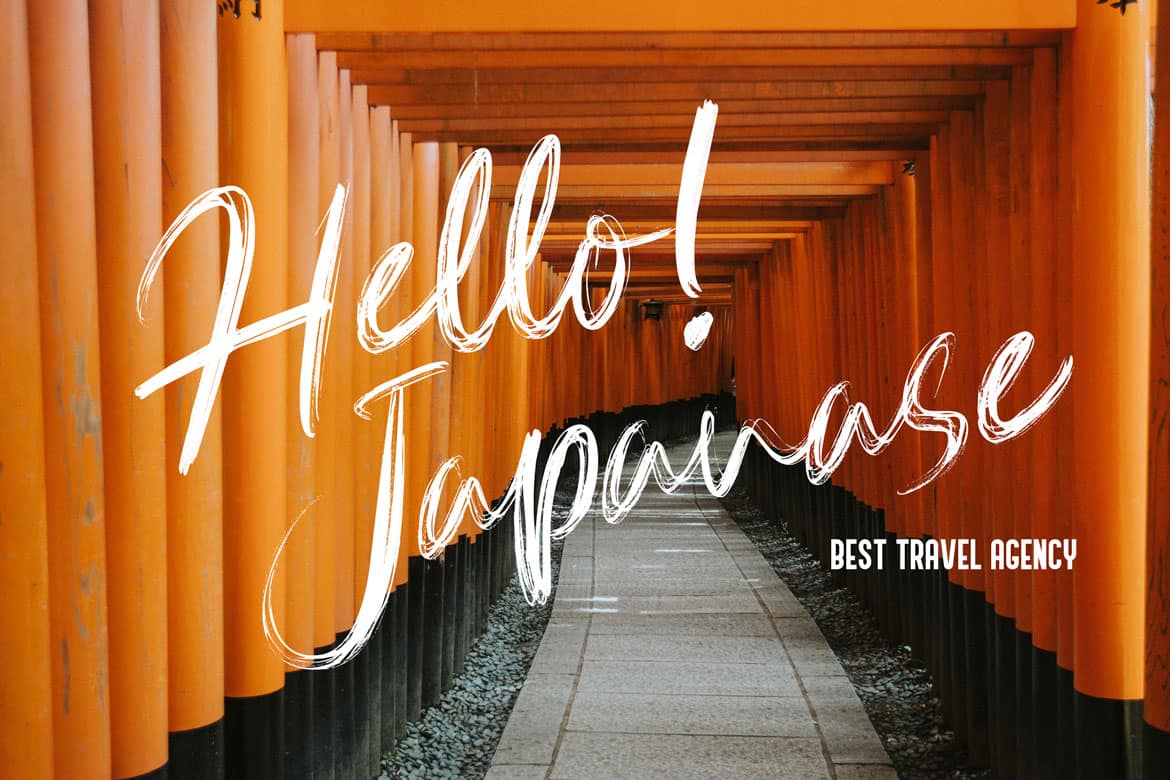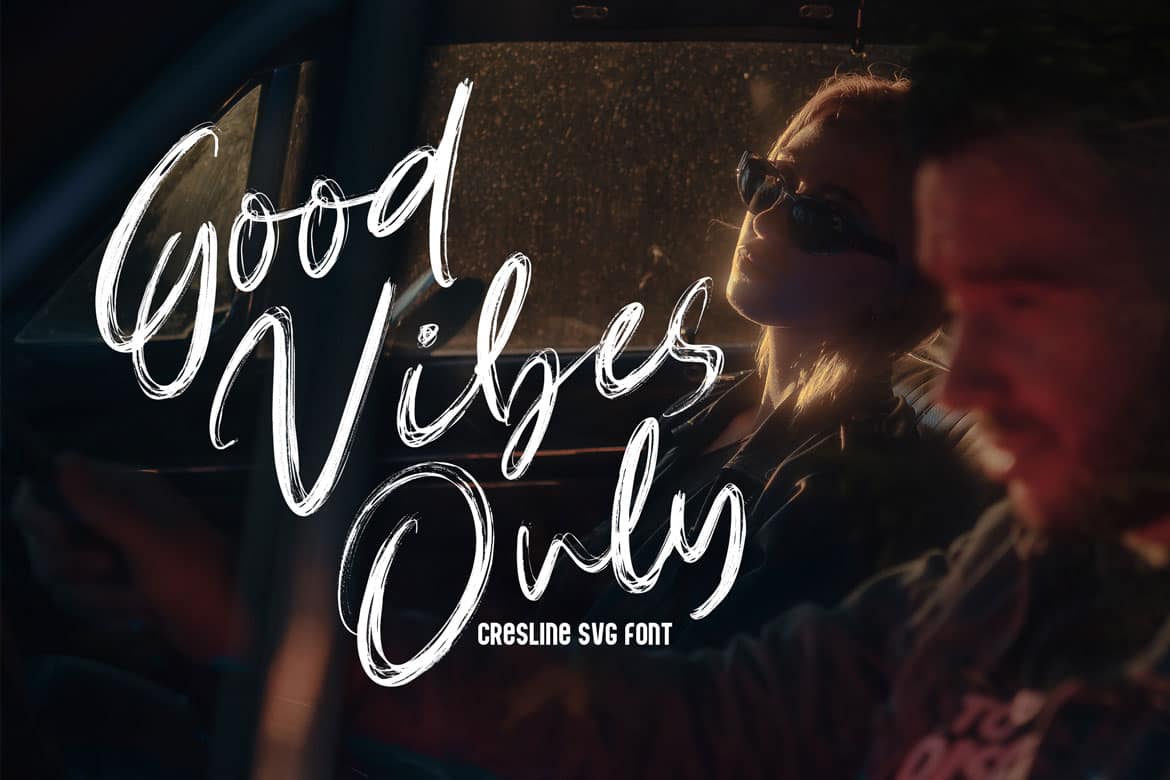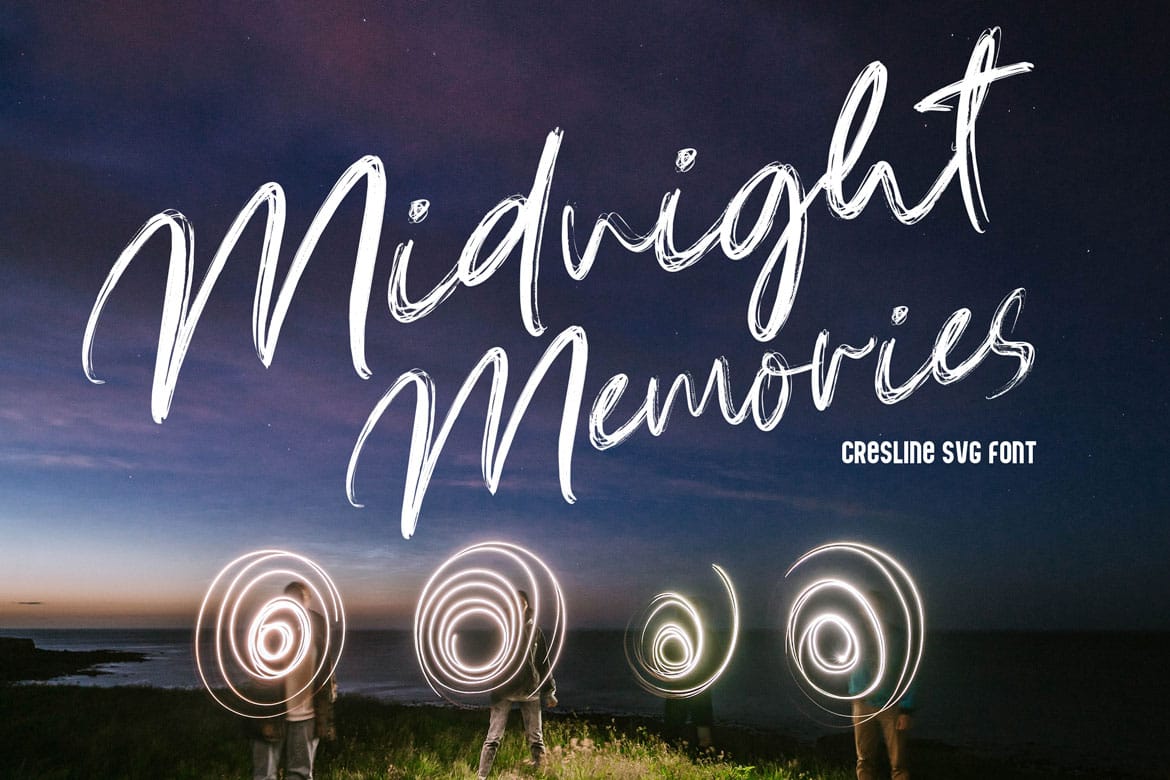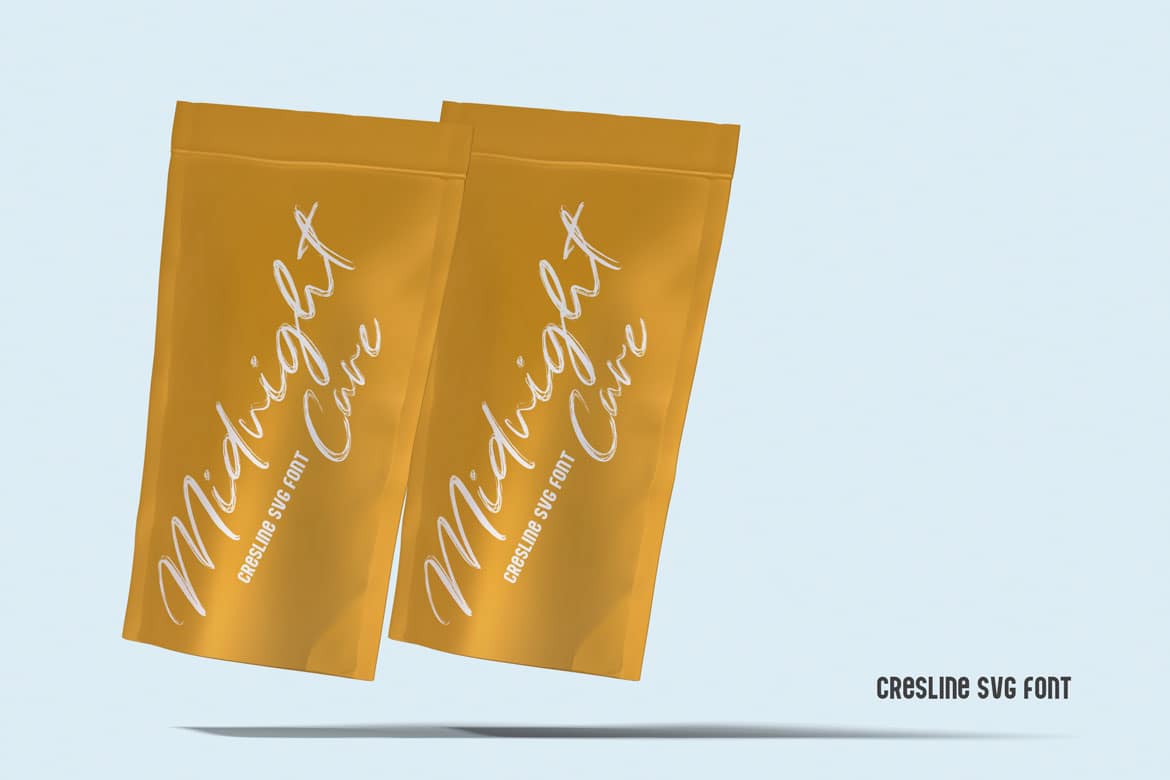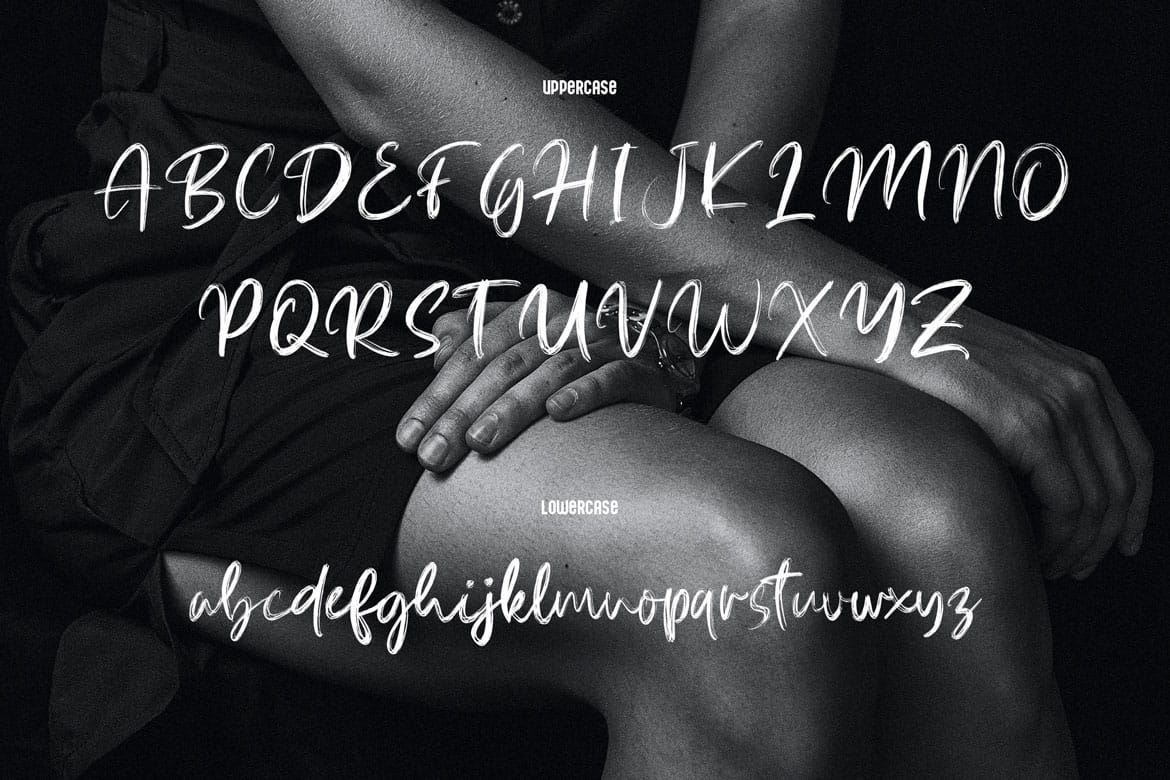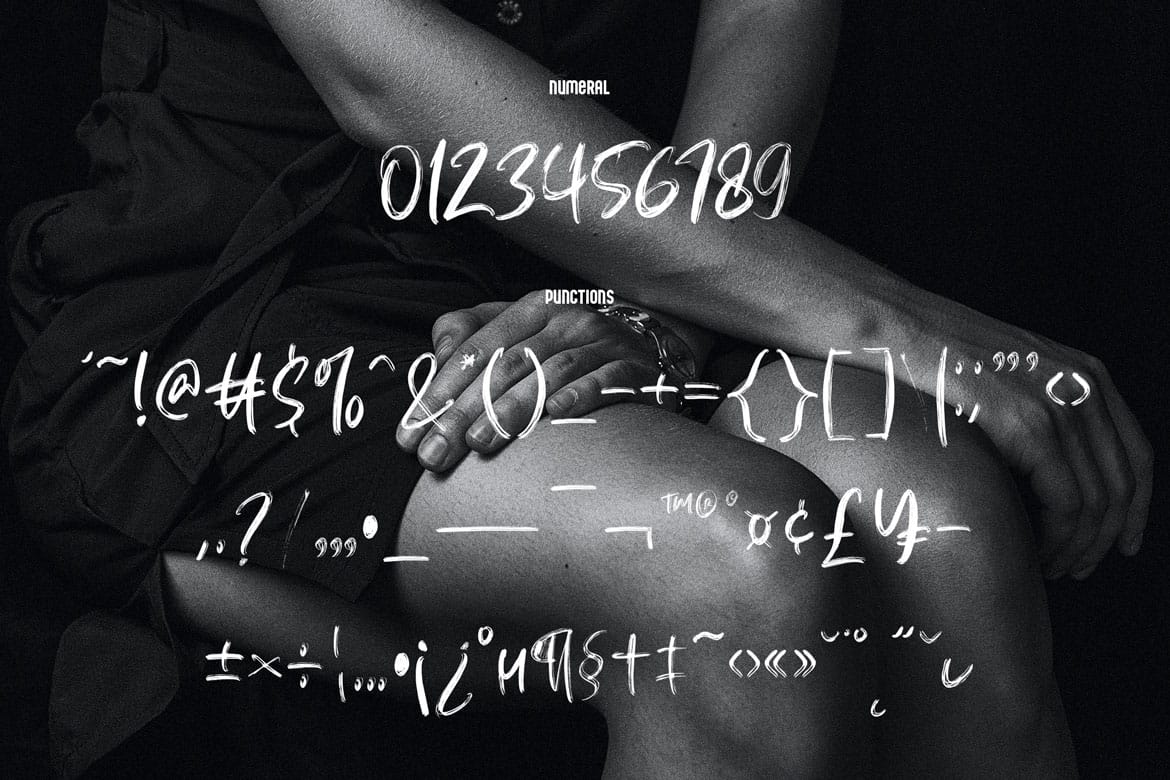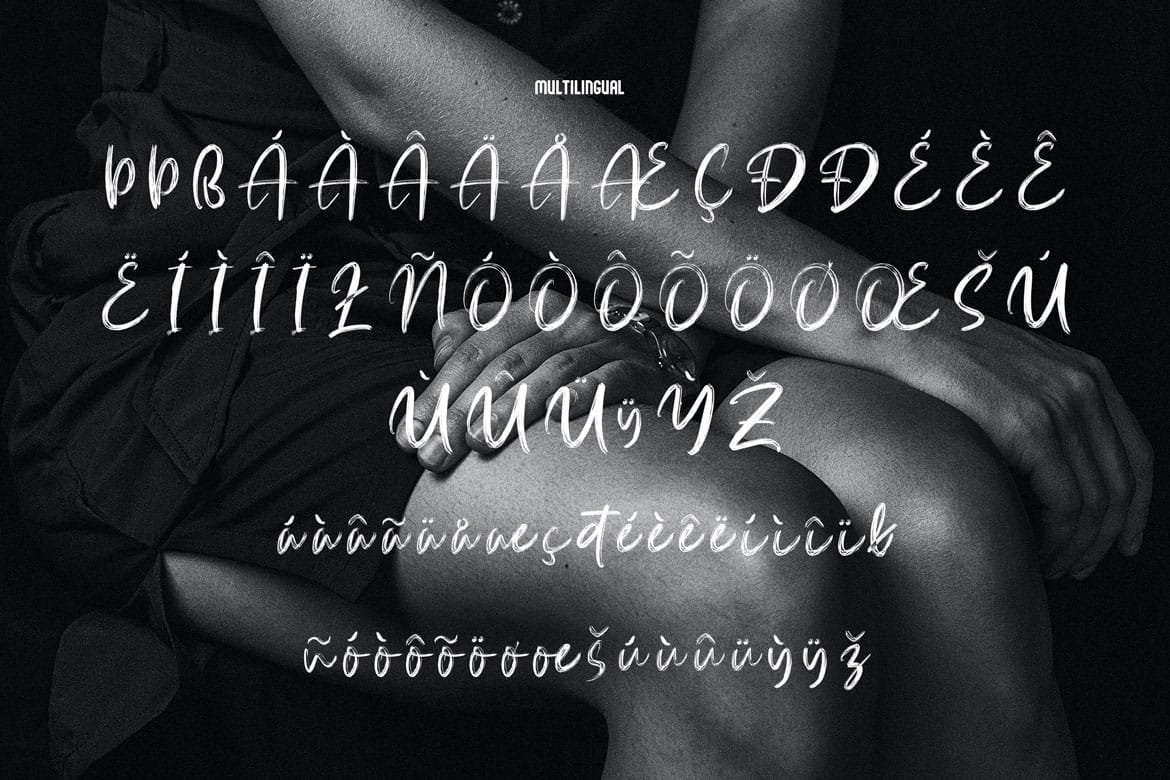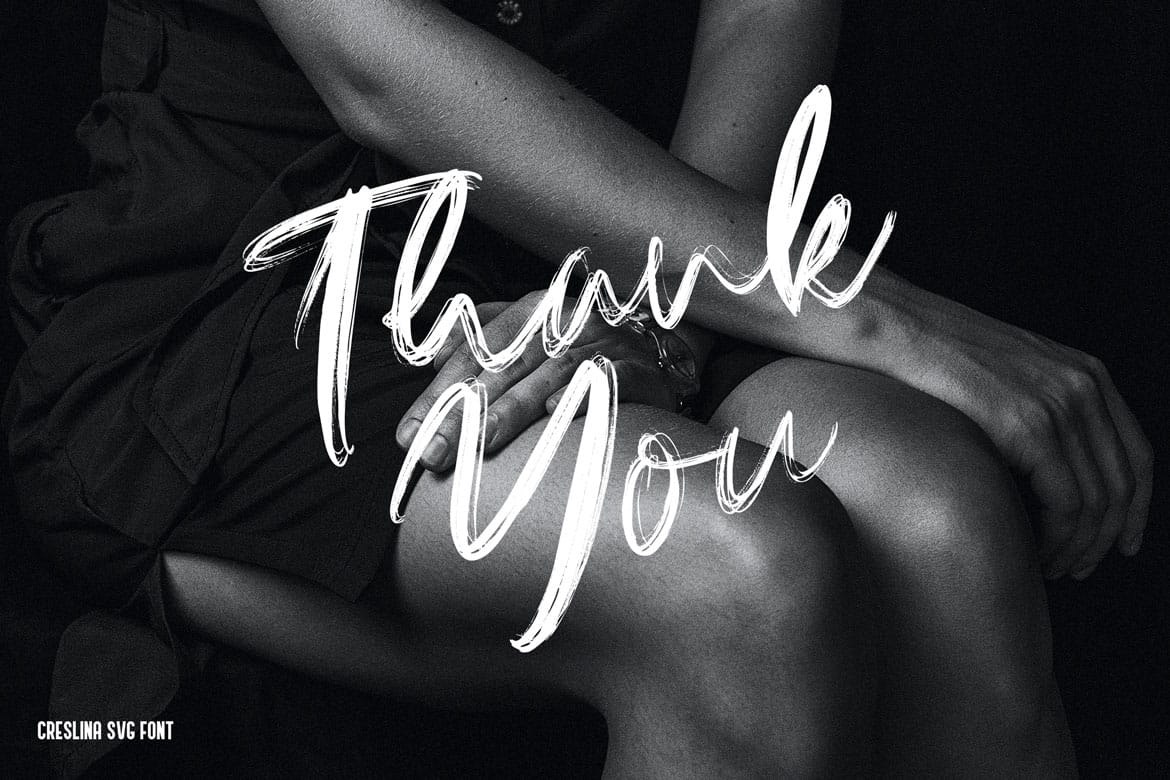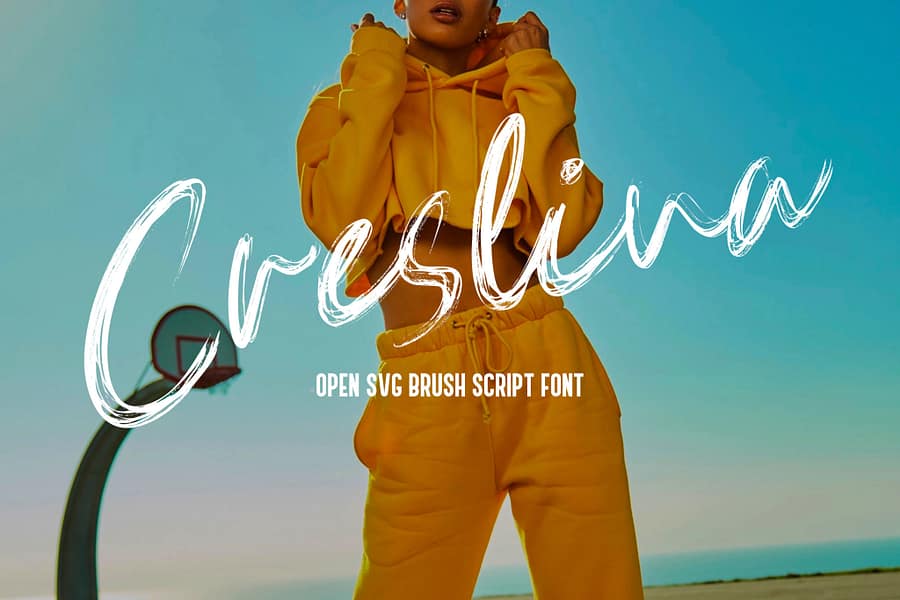
Creslina – Open SVG Brush Script font. It has a elegant, classy look and beauty. It’s a great font for fashion, apparel projects, signature, album cover, logo, branding, magazine, social media, & advertisements, but also works great for other projects.
• Basic Latin A-Z and a-z
• Numbers
• Punctions
Creslina – SVG Brush Script Font